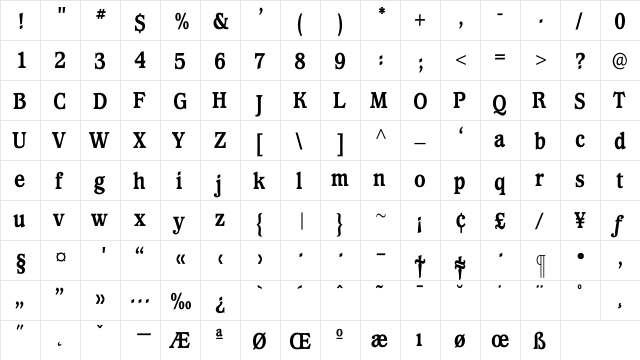
WaverlyExtraBoldCondensed Regular Font Preview
Design Context for WaverlyExtraBoldCondensed Typeface
WaverlyExtraBoldCondensed is a composed and adaptable typeface that performs quietly and consistently across a wide range of design contexts. The heavy weight commands attention and anchors typographic hierarchies. The condensed width makes it efficient for tight spaces without sacrificing legibility.
Pro Tip: Pair WaverlyExtraBoldCondensed with a font of contrasting weight or personality to build a more expressive typographic hierarchy.